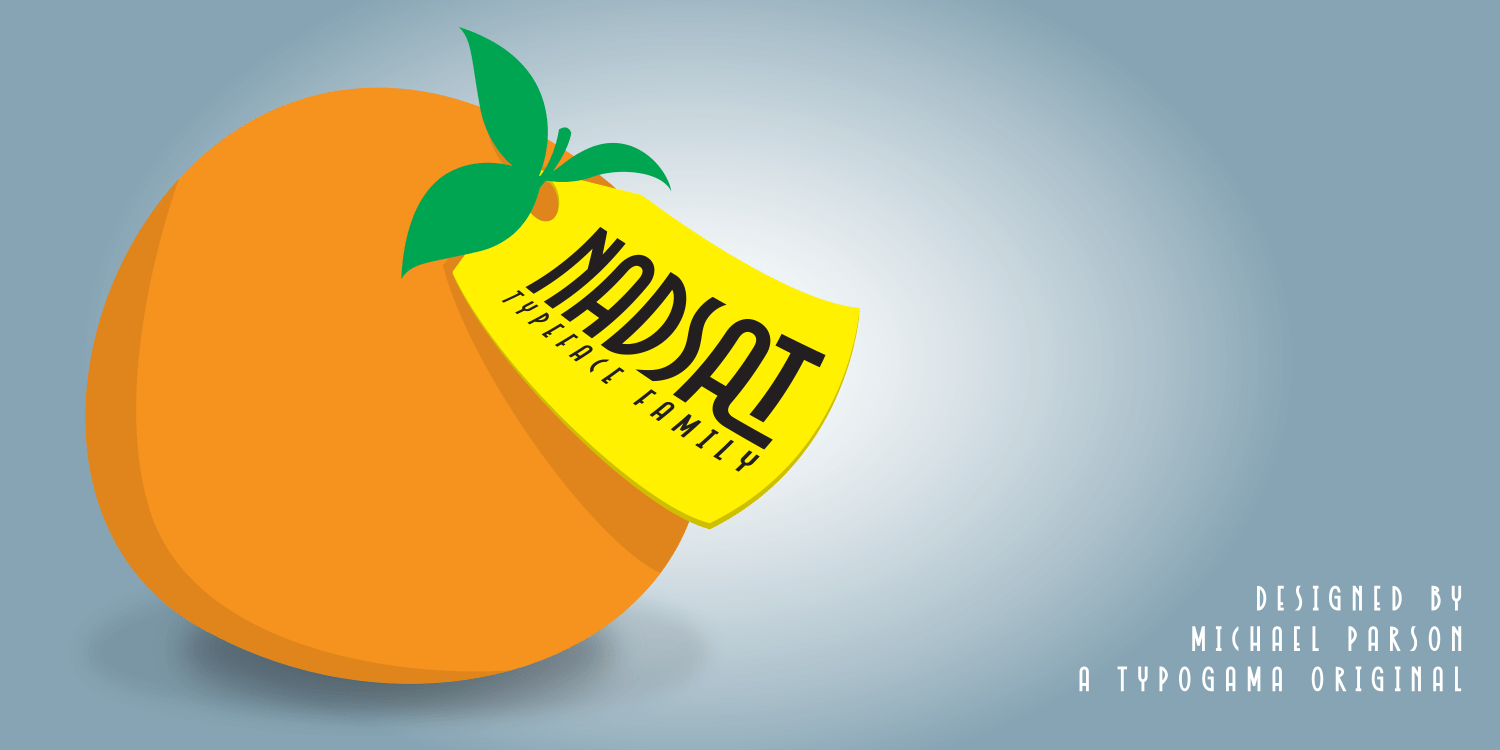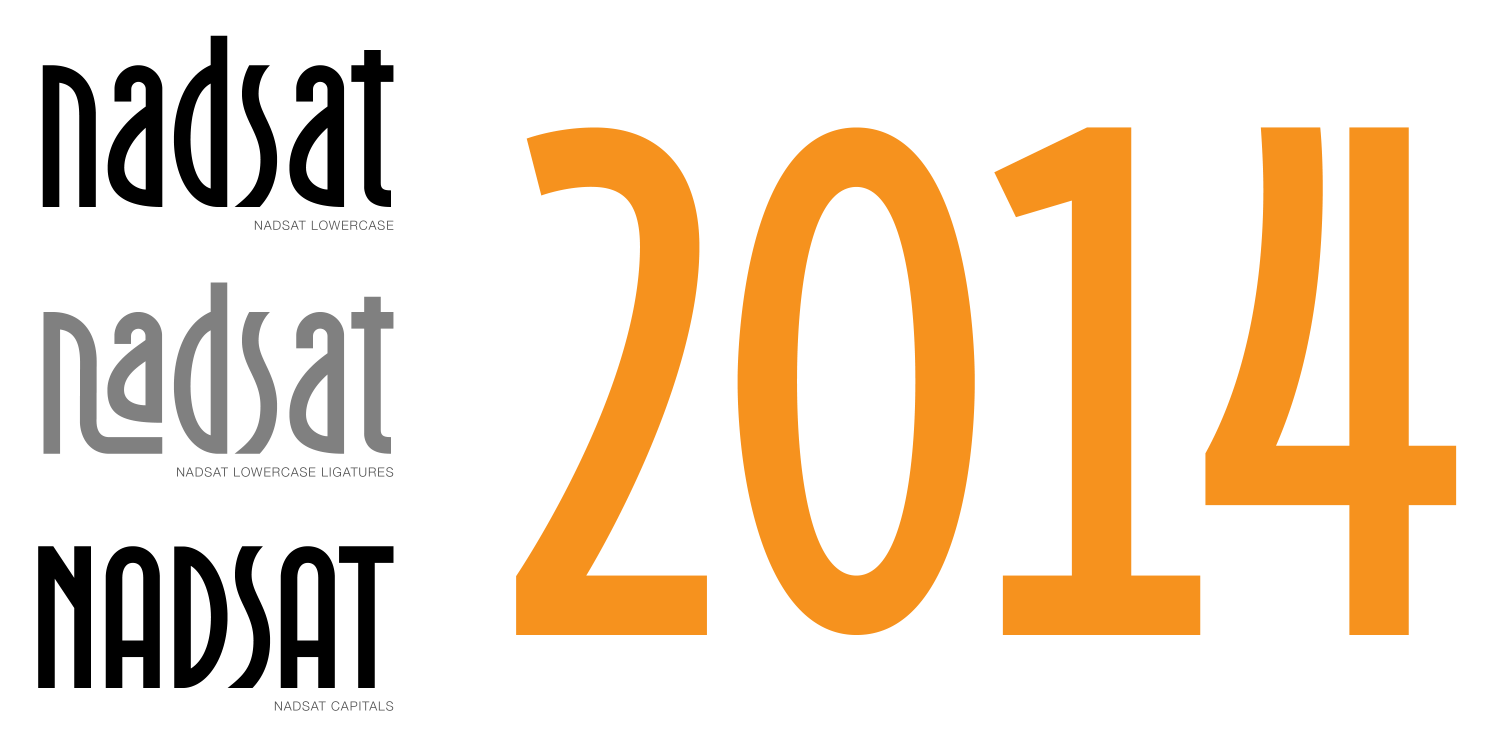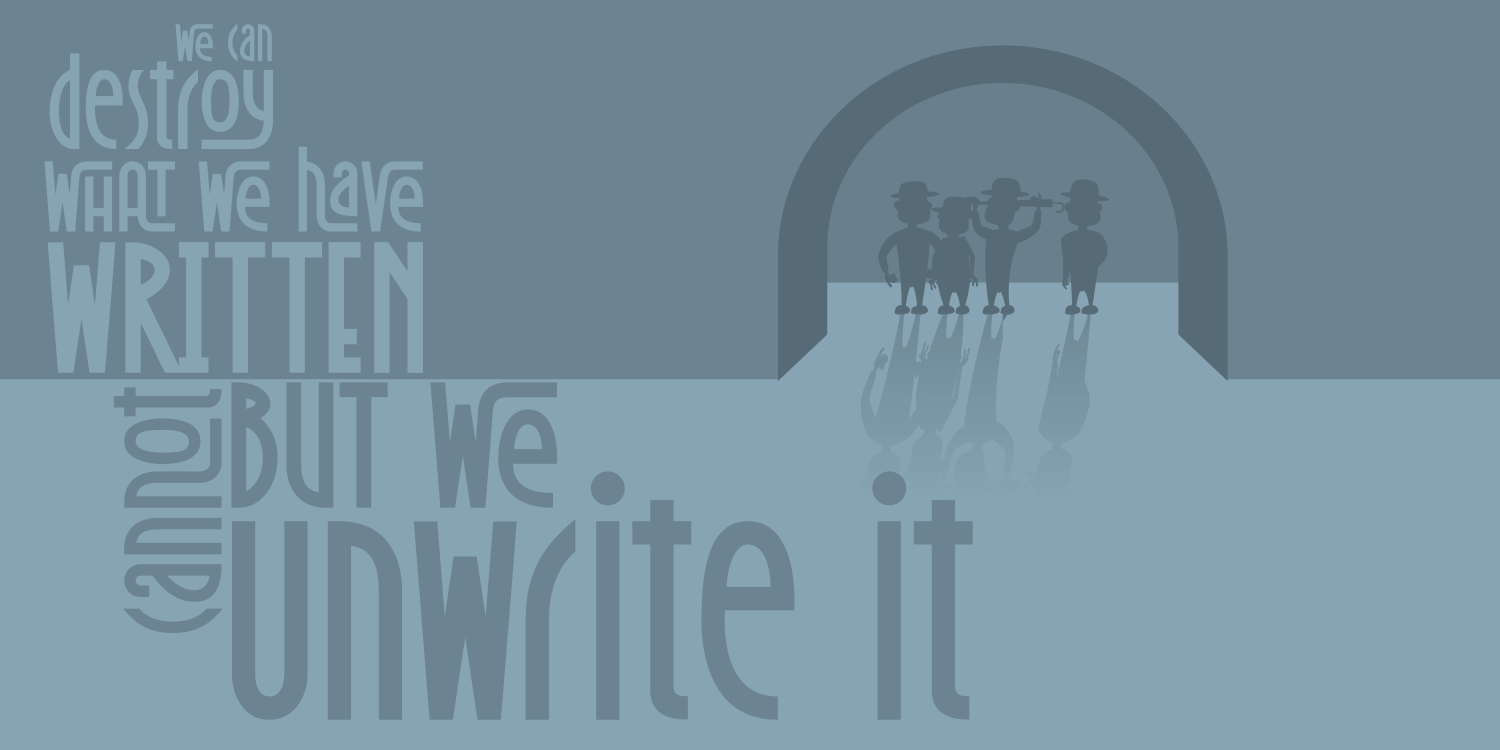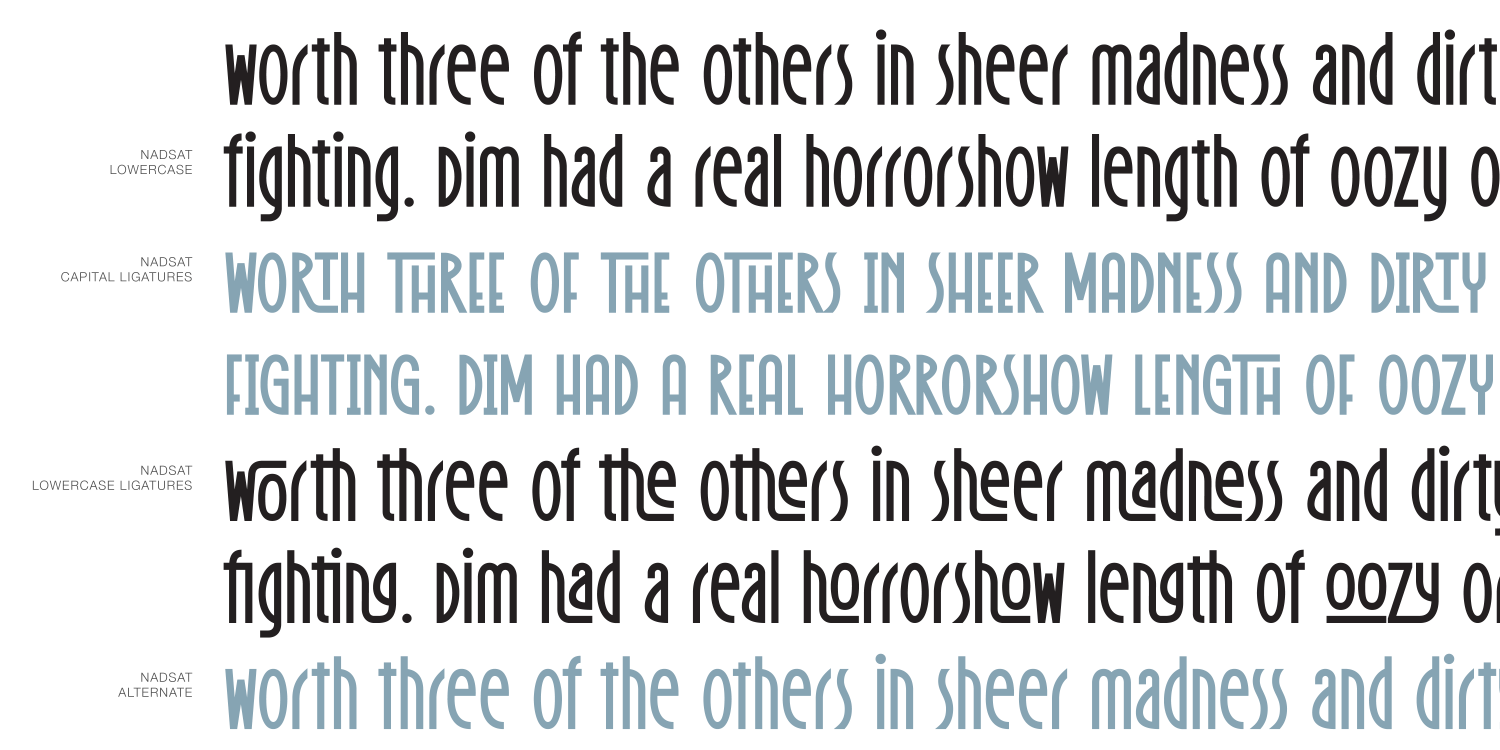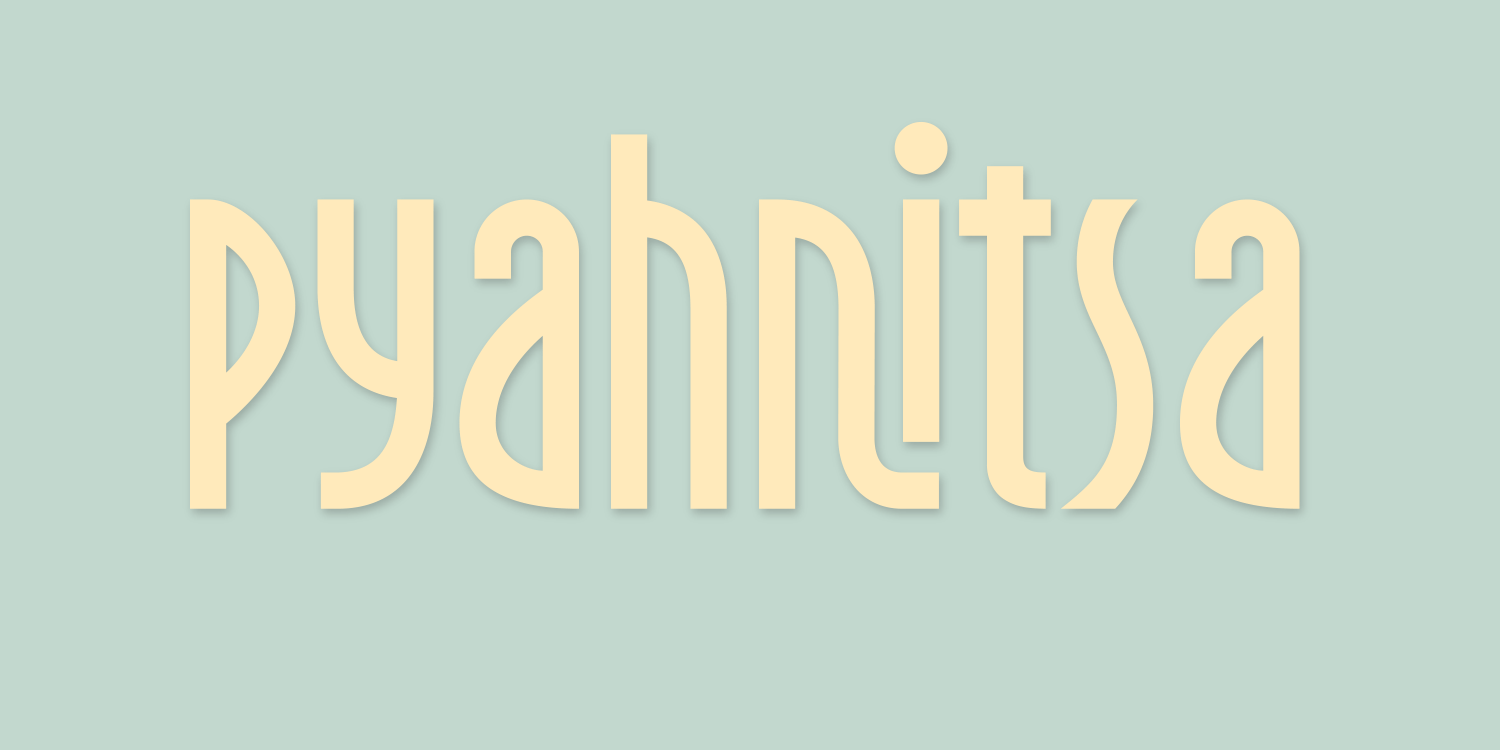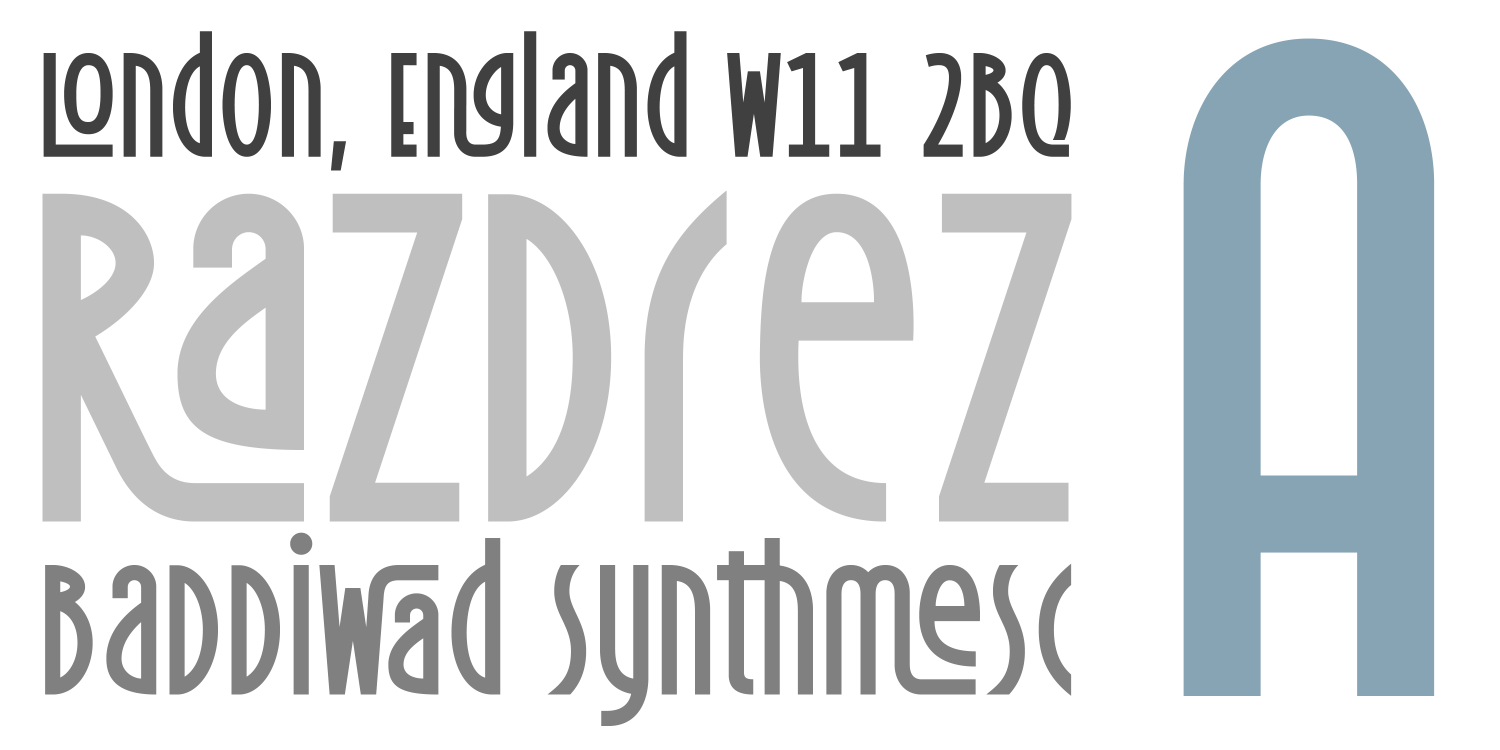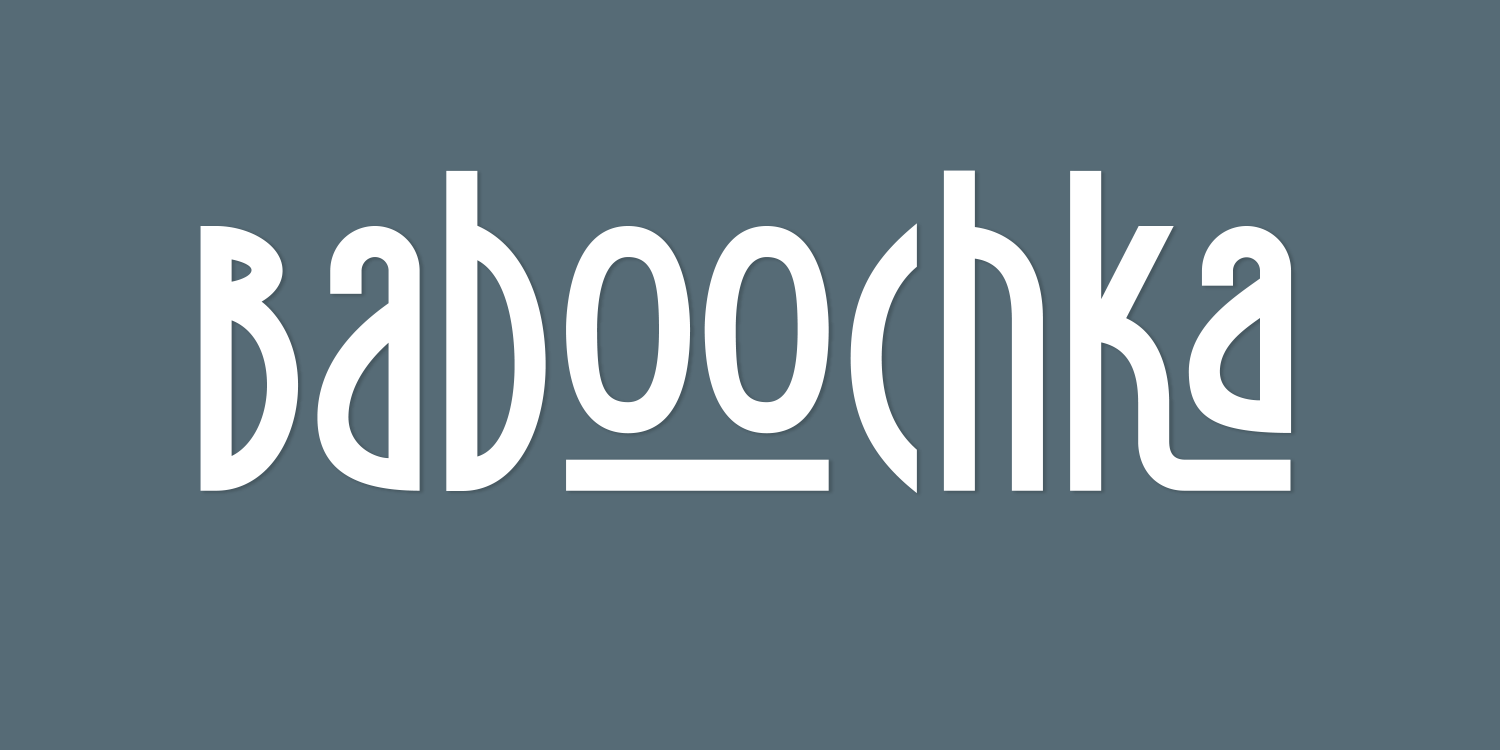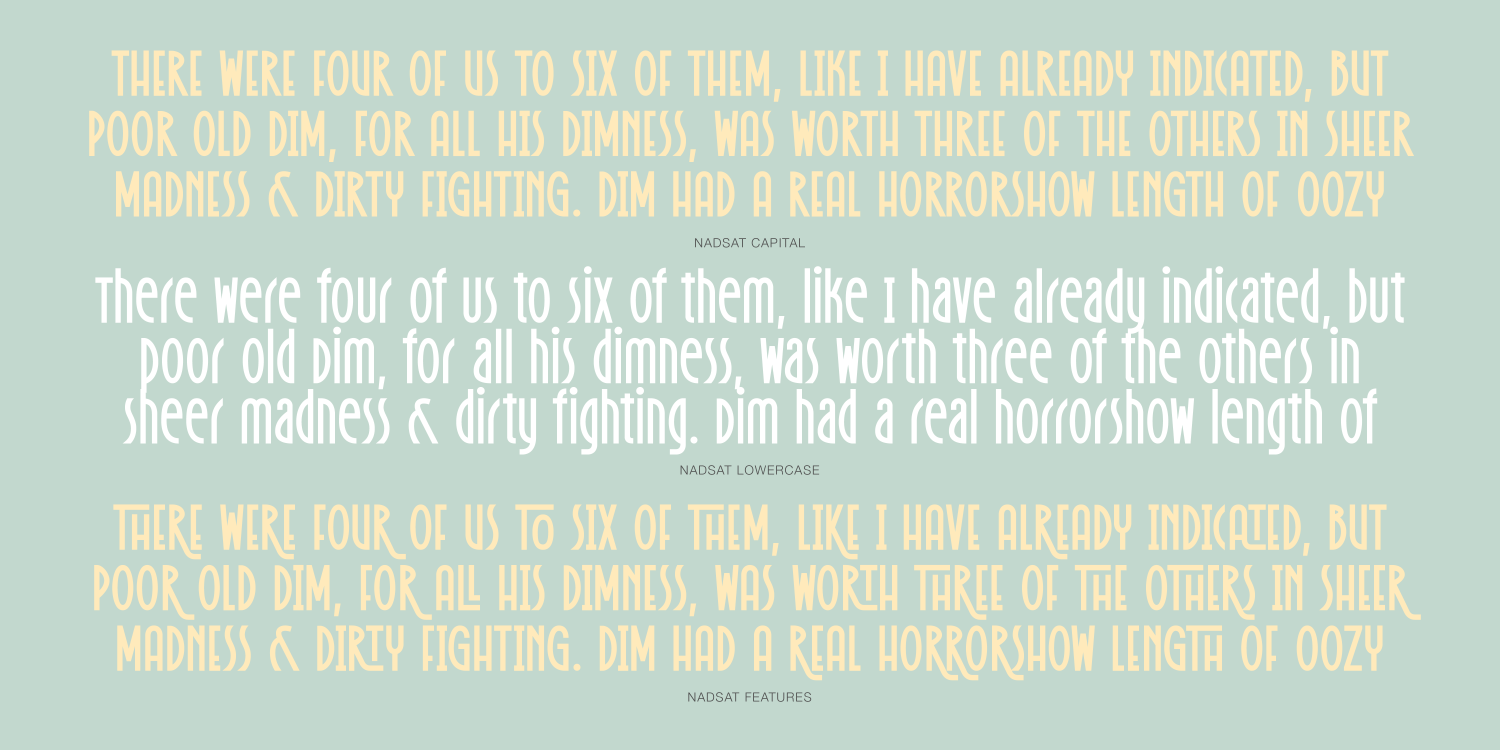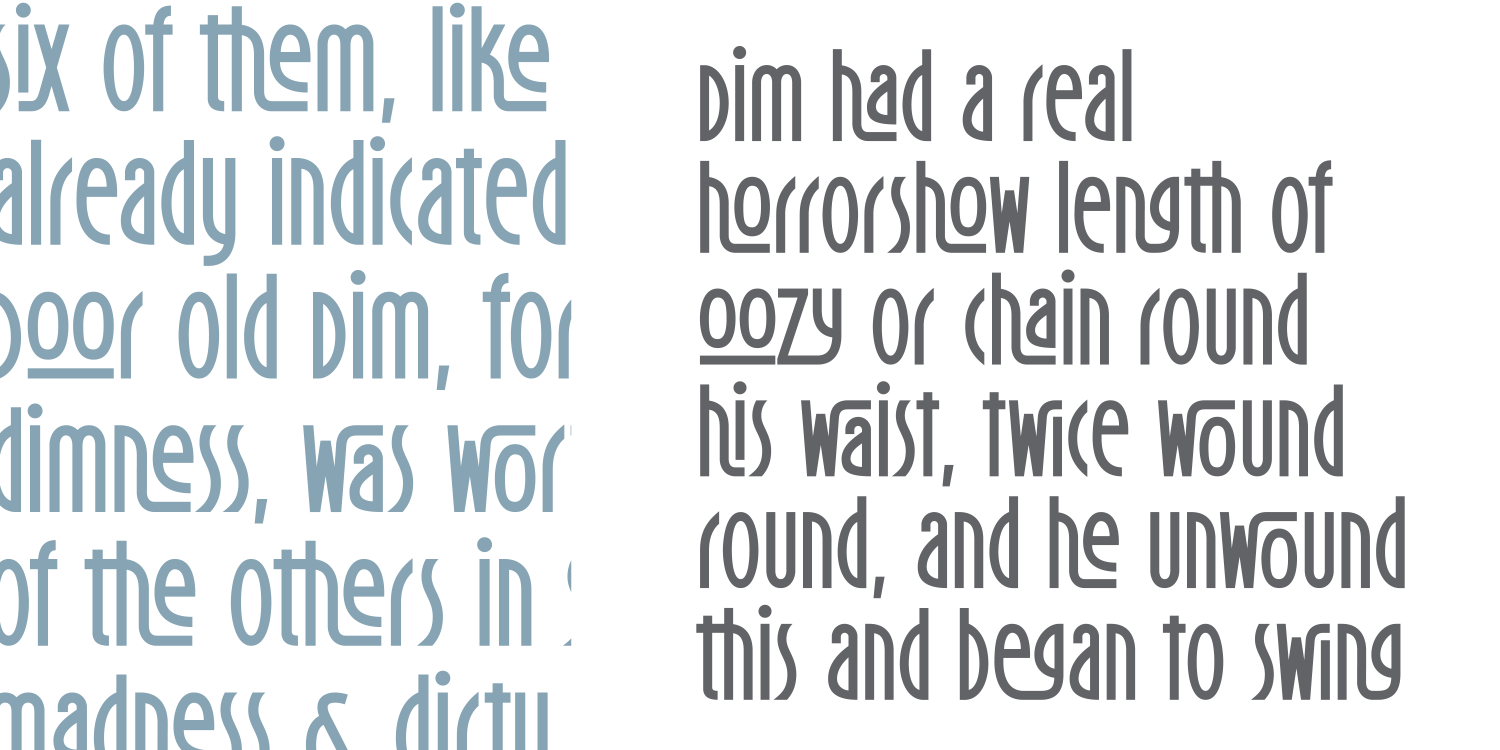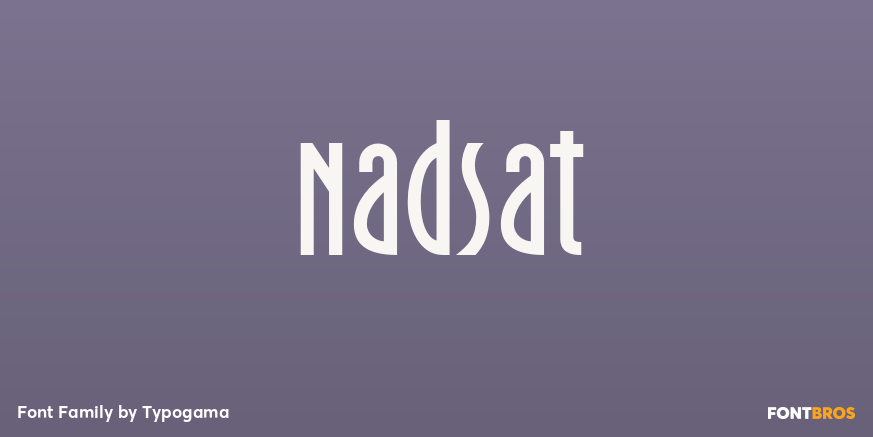
Nadsat
Font Family by Typogama
Nadsat is a display typeface with a condensed, art deco styling. Best suited for short texts or display settings, the lowercase and capital letters can be combined to offer more layout possibilities. The typeface also includes a series of ligatures for even more options.